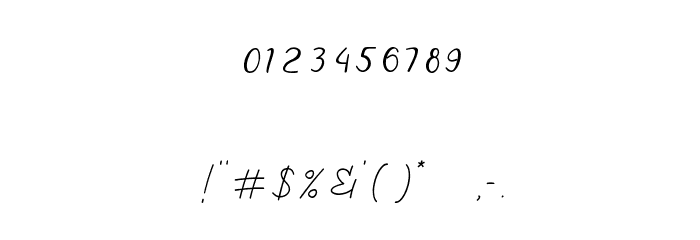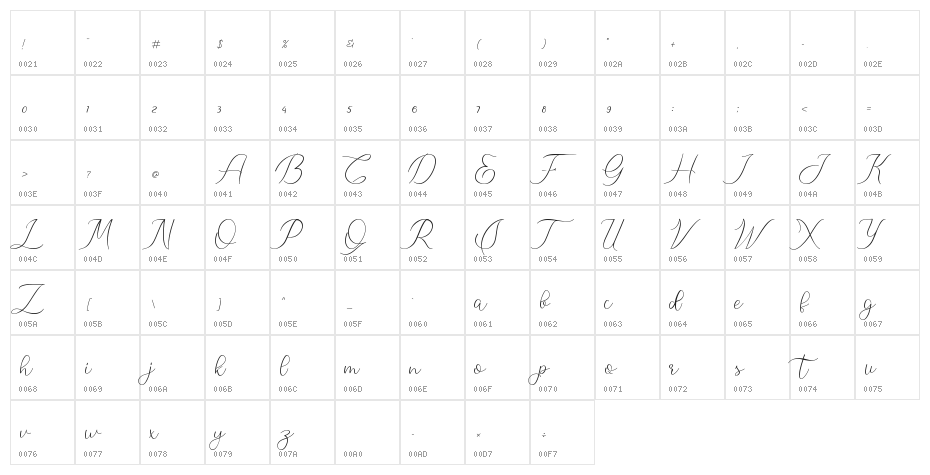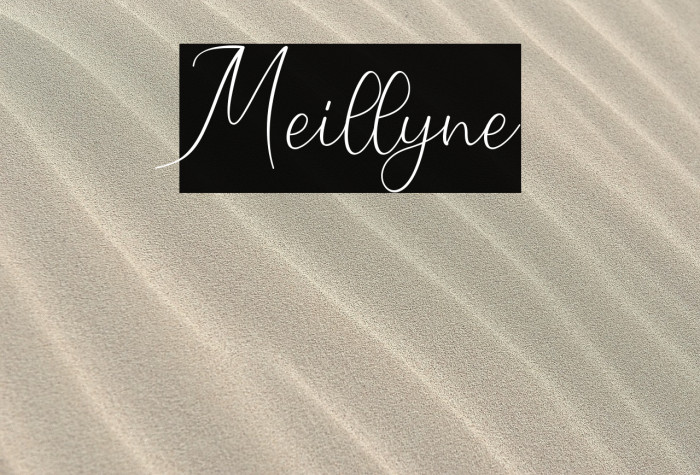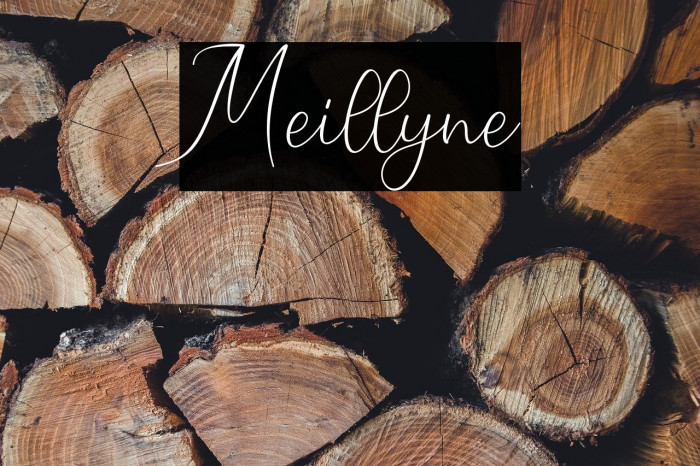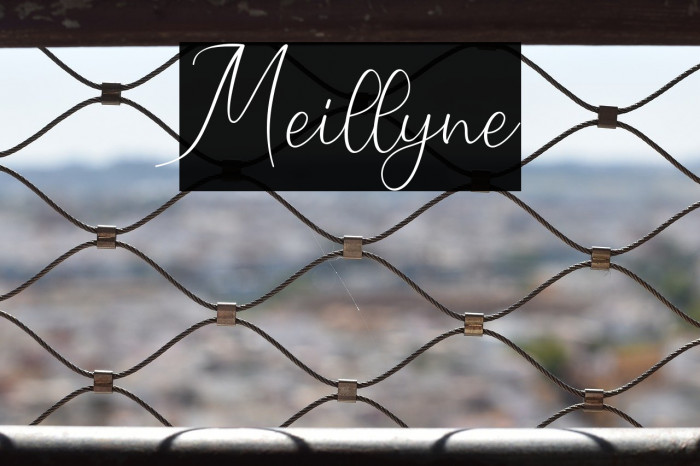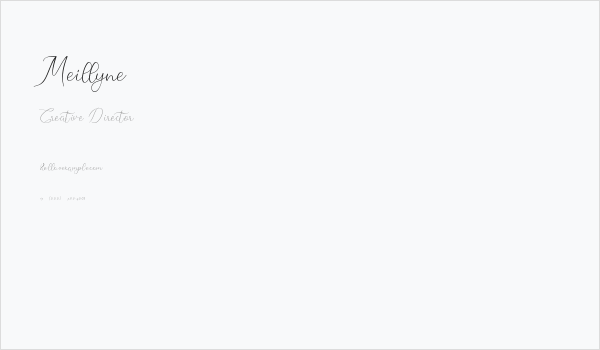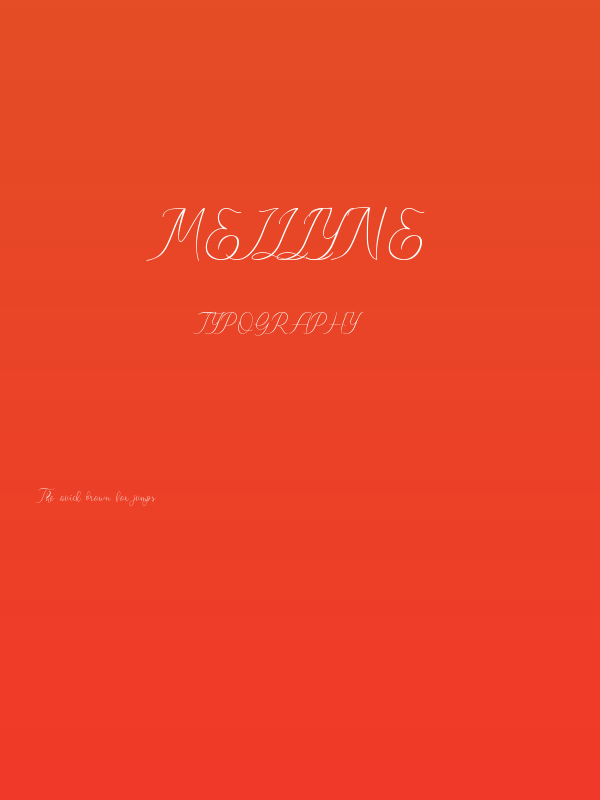
Meillyne Font
Meillyne Description
This elegant script font features a flowing, cursive style with graceful, elongated strokes and delicate curves. The uppercase letters are characterized by their sweeping lines and intricate loops, giving them a sophisticated and artistic appearance. The lowercase letters maintain a consistent fluidity, with smooth connections between characters that enhance readability while retaining an ornamental flair. The numerals and special characters are designed to complement the overall aesthetic, with a similar emphasis on curves and fluidity. This font exudes a sense of elegance and refinement, making it suitable for formal and decorative applications.
| Proposed Projects | Ideal for wedding invitations, greeting cards, branding, and elegant packaging designs. |